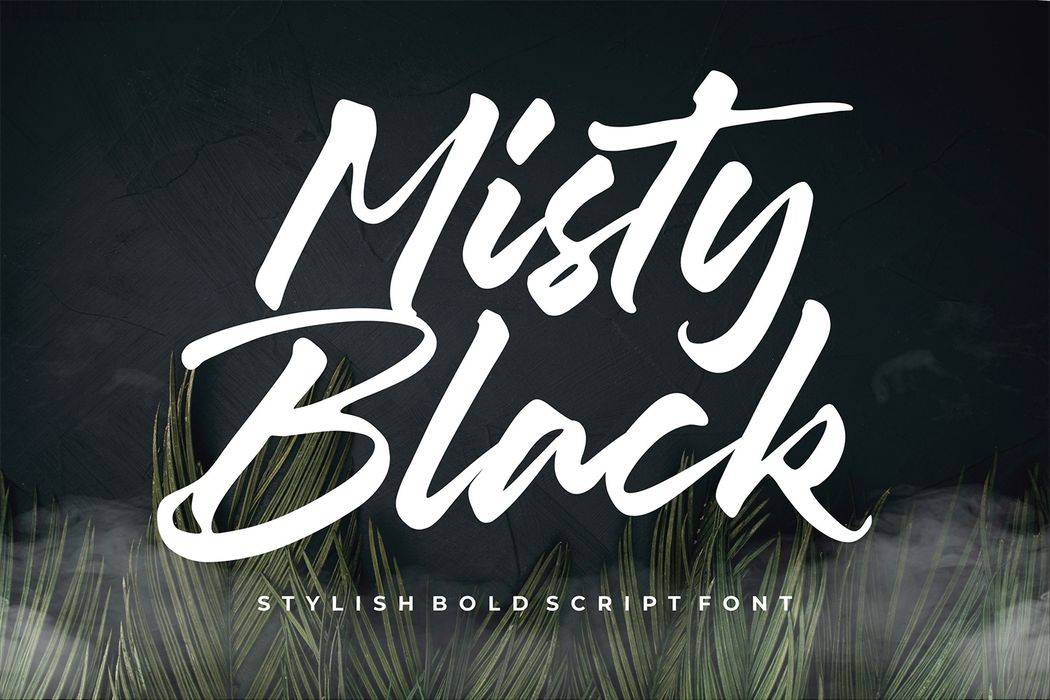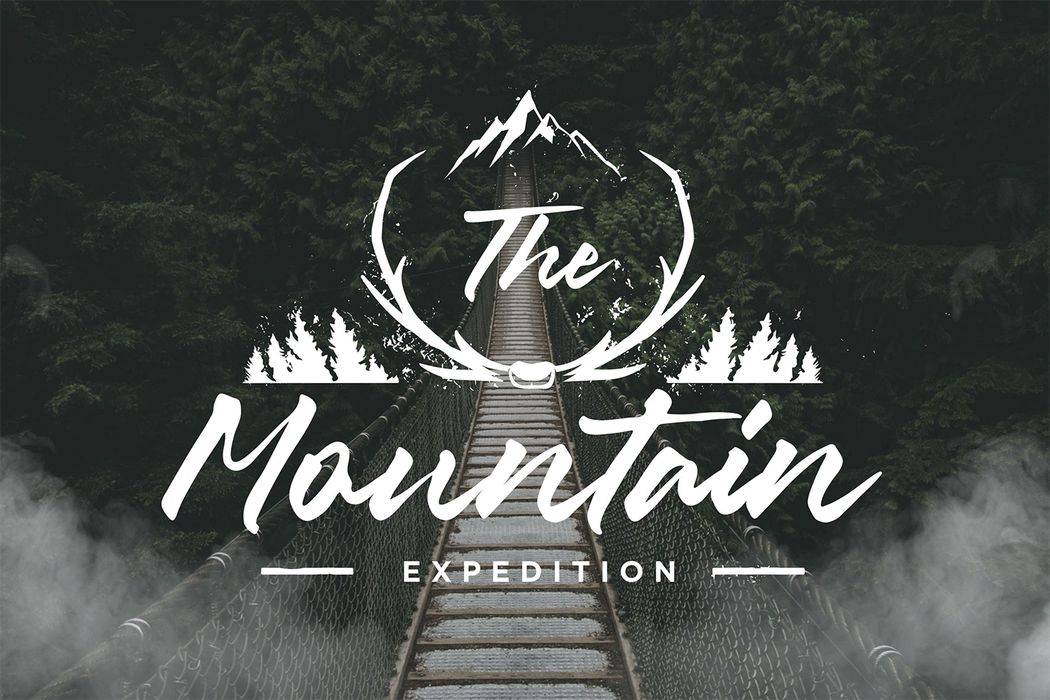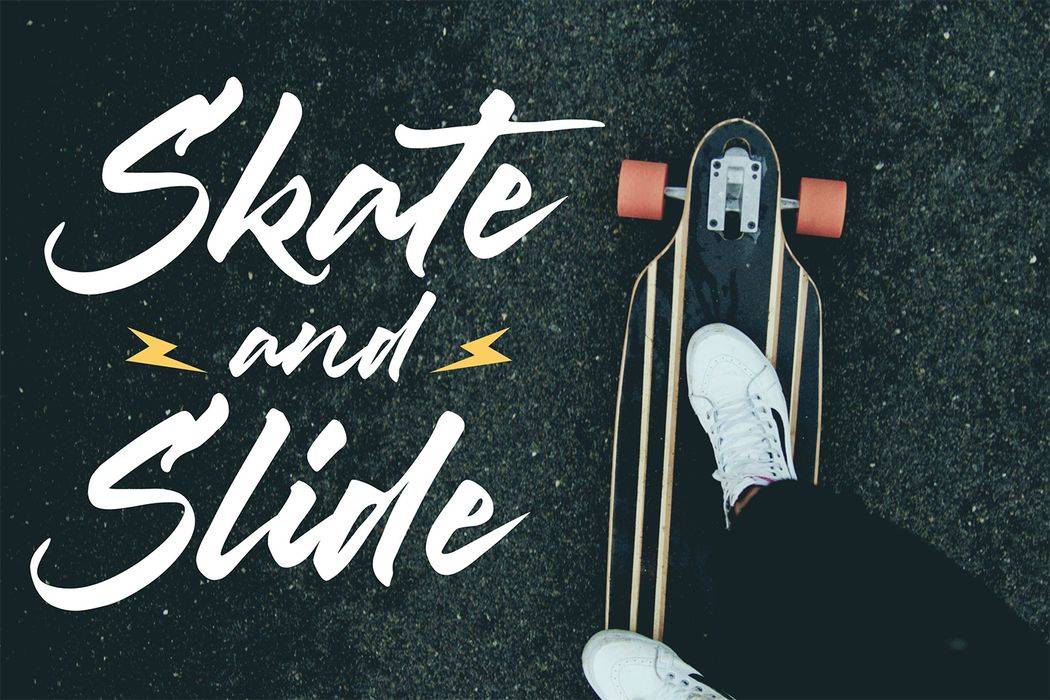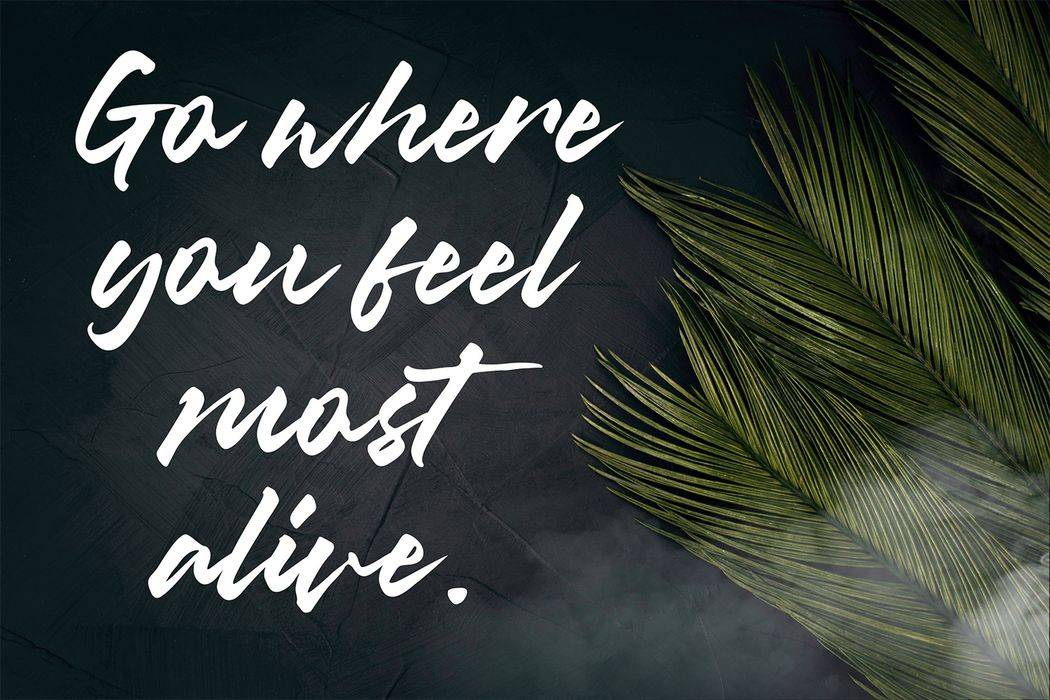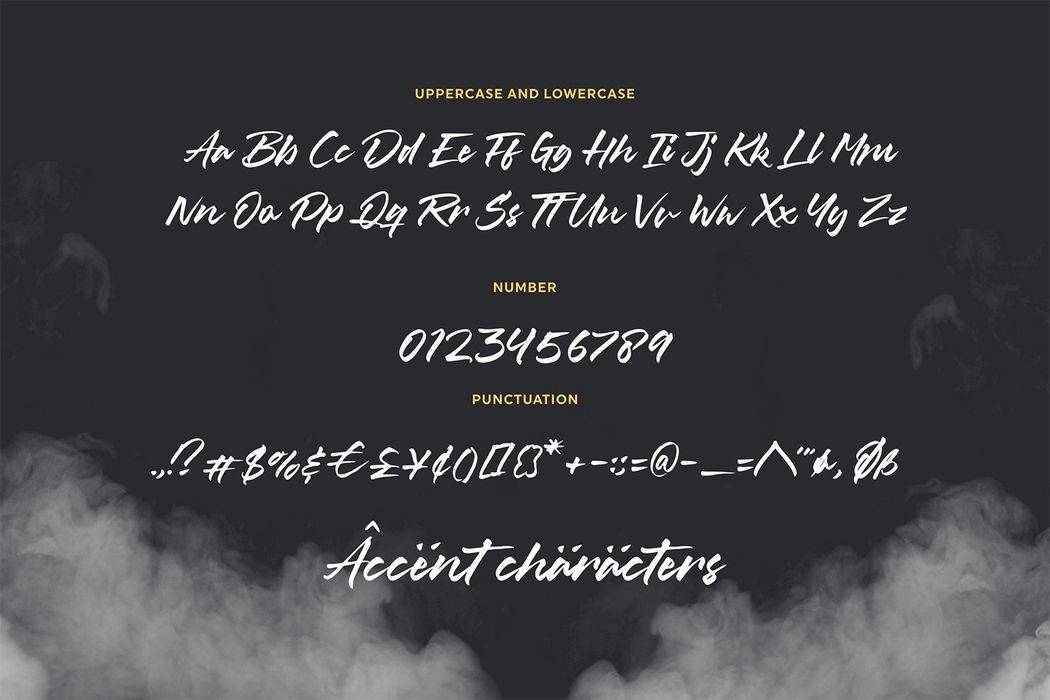
Misty Black is a lively script font with a hand-drawn, casual feel, characterized by its smooth, flowing strokes and slightly slanted letterforms. Its medium weight and airy spacing make it perfect for creating an approachable yet elegant style, ideal for branding, invitations, and creative headlines where a personal touch is desired. This font conveys warmth and personality, lending a modern, artistic flair to any design.
Misty Black Font
About Misty Black Font
| Font family | Misty Black Font |